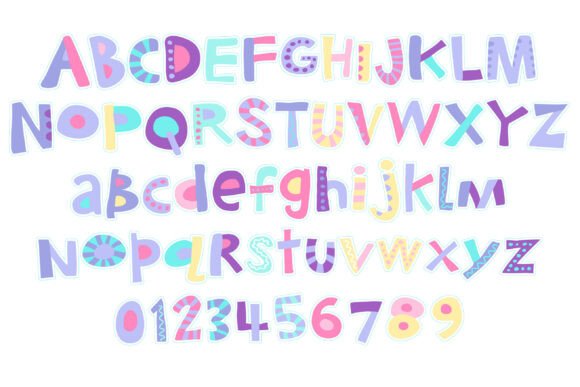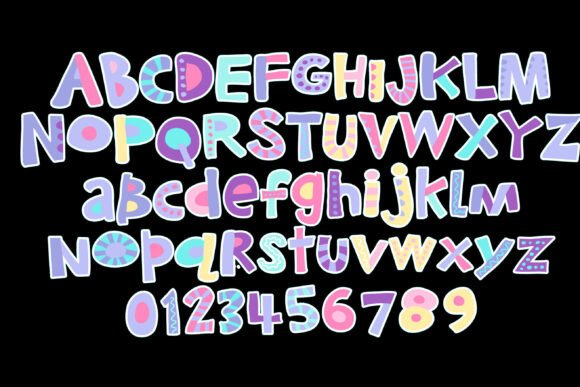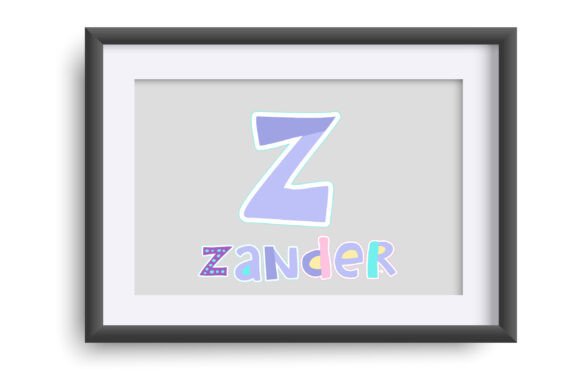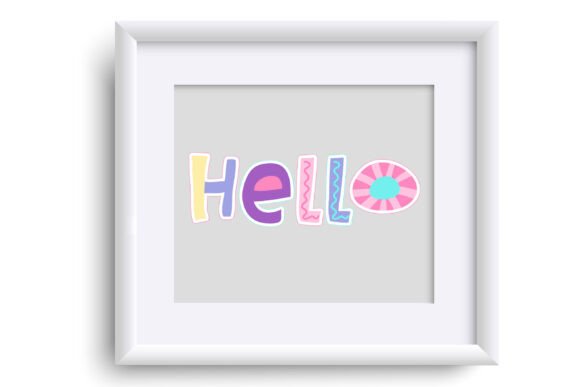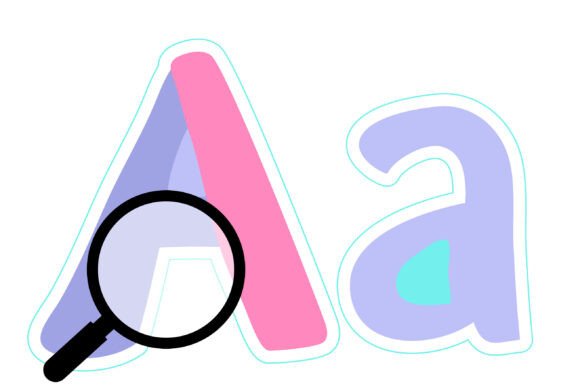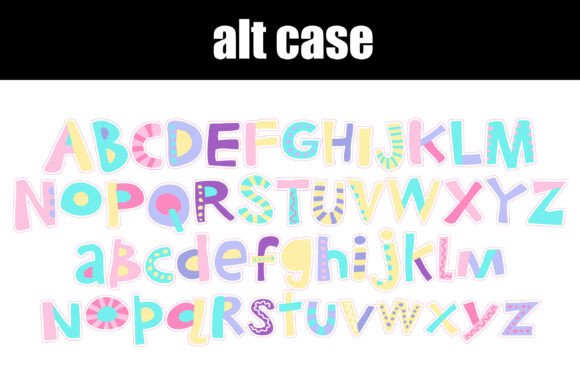
Introduction to Smorgasbord Easter Font
As a designer, have you ever found yourself stuck in a creative rut, searching for the perfect font to bring your springtime project to life? I know I have! That’s why I’m excited to share with you a game-changing resource that’s sure to add a burst of joy and personality to any design: the Smorgasbord Easter Font.
This delightful font is more than just a pretty face – it’s a treasure trove of design possibilities waiting to be unleashed. With its unique Easter-themed patterns and soft pastel hues, Smorgasbord Easter Font is perfect for crafting one-of-a-kind party invites, springtime crafts, and kids’ designs that are sure to delight.
Key Features of Smorgasbord Easter Font
- Unique Easter-themed design, perfect for creative projects and holiday celebrations.
- High-quality font, suitable for print and digital applications, including invitations, greeting cards, and social media graphics.
- Includes 200+ glyphs, including uppercase and lowercase letters, numbers, and special characters.
Honest Review: Smorgasbord Easter Font
As a designer, I’m always on the lookout for unique and high-quality design resources to elevate my creative projects. The Smorgasbord Easter Font caught my eye, and I decided to give it a try. Here’s my honest review.
- ✨ Unique and playful design that’s perfect for Easter-themed projects
- ⚠️ Limited character set, which might be a concern for designers who need to create long-form content
- ⚠️ Font size and style options are limited, which might restrict creative freedom
Overall, the Smorgasbord Easter Font is a great addition to any designer’s toolkit. While it has some limitations, its unique design and high-quality files make it a valuable resource for Easter-themed projects and beyond. I’d definitely recommend it to designers looking for a fun and creative solution.
Tips for Getting the Most Out of Smorgasbord Easter Font
For a high-quality design, use the Smorgasbord Easter Font on a transparent background to create a seamless and professional look. You can also experiment with different font sizes and colors to add visual interest to your design.
The Smorgasbord Easter Font is perfect for Easter-themed designs, such as invitations, cards, and social media posts. It’s also a great choice for spring and summer designs, adding a touch of whimsy and playfulness to your creative project.